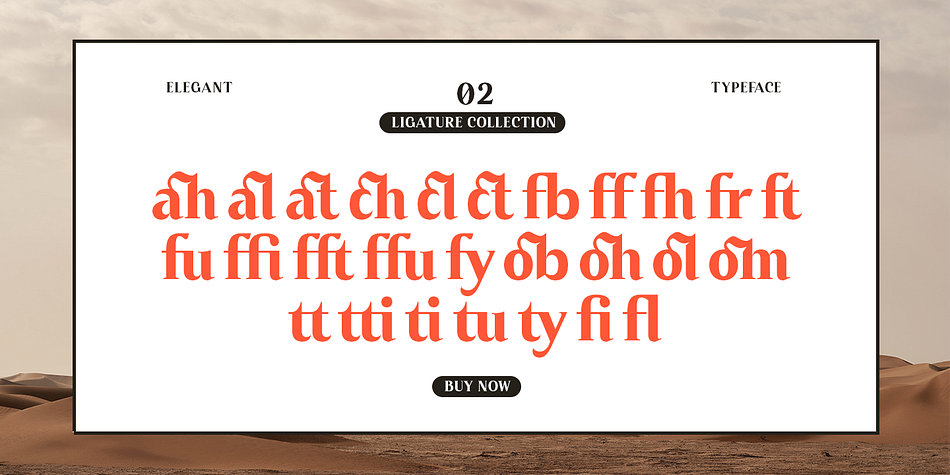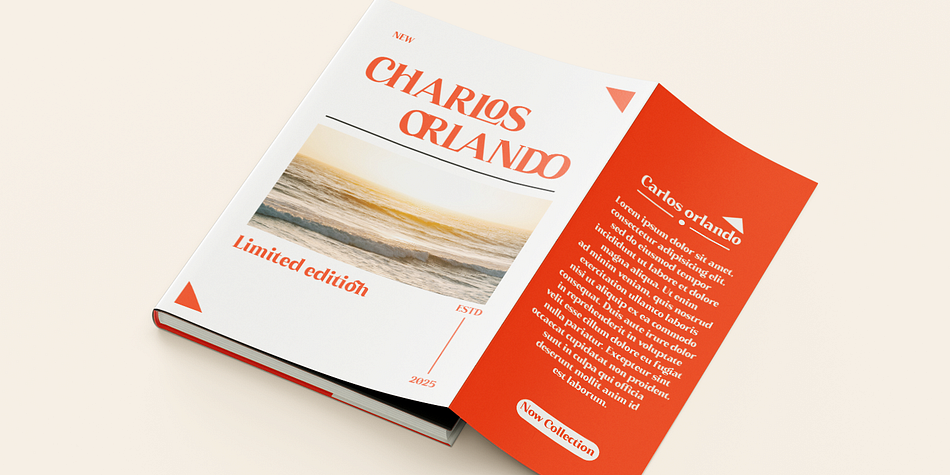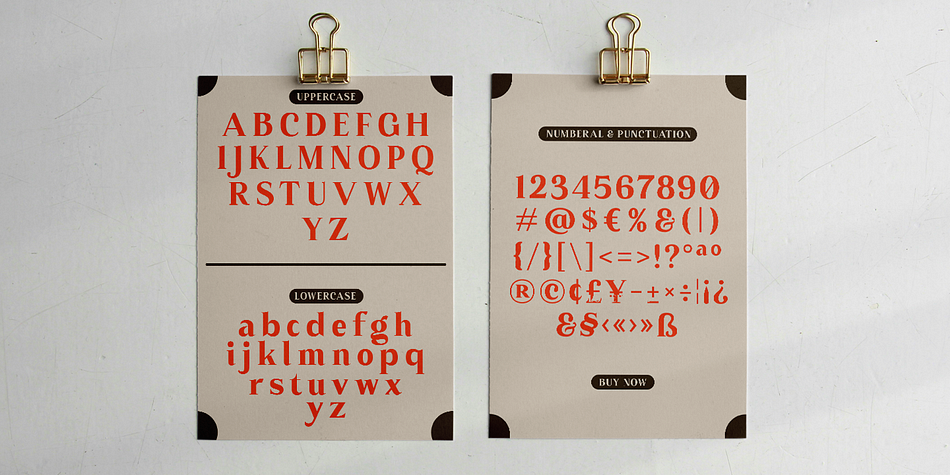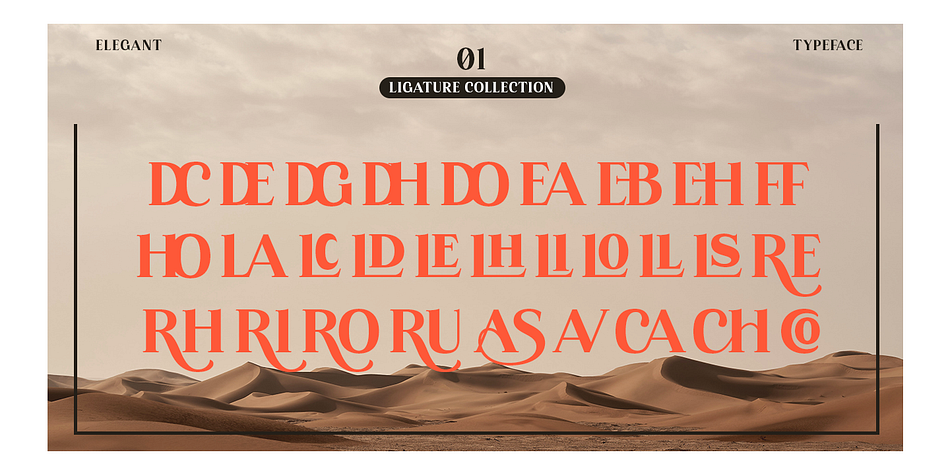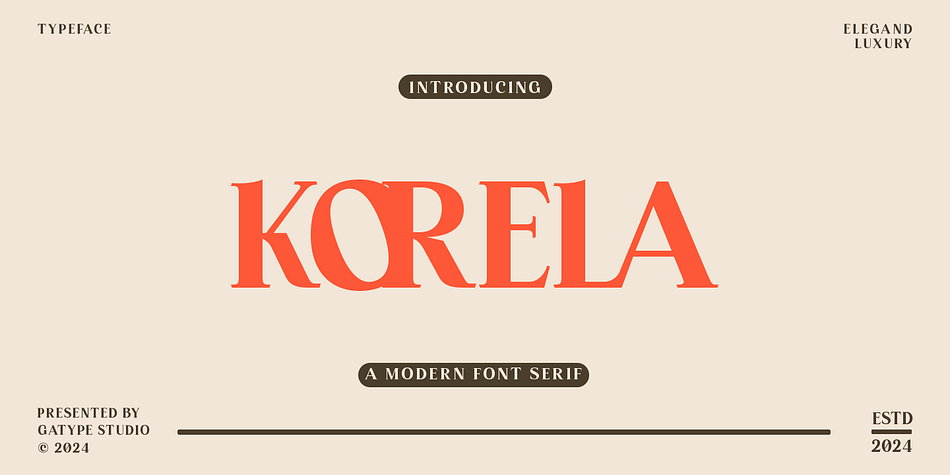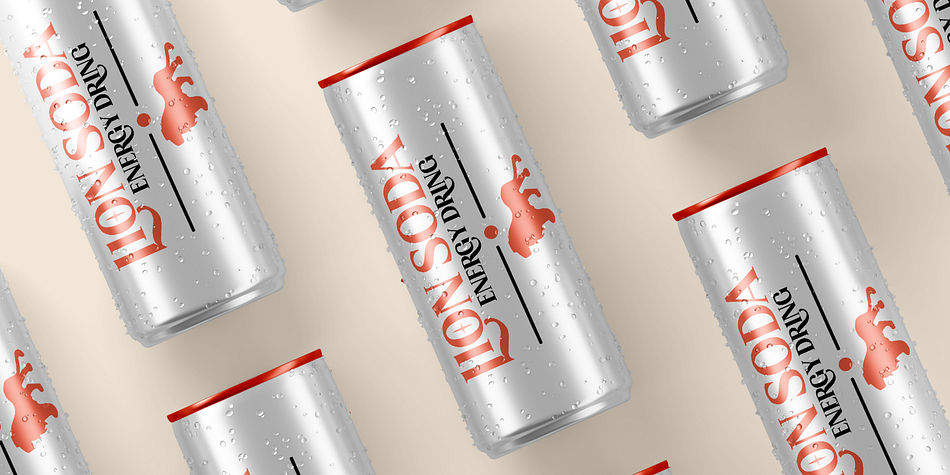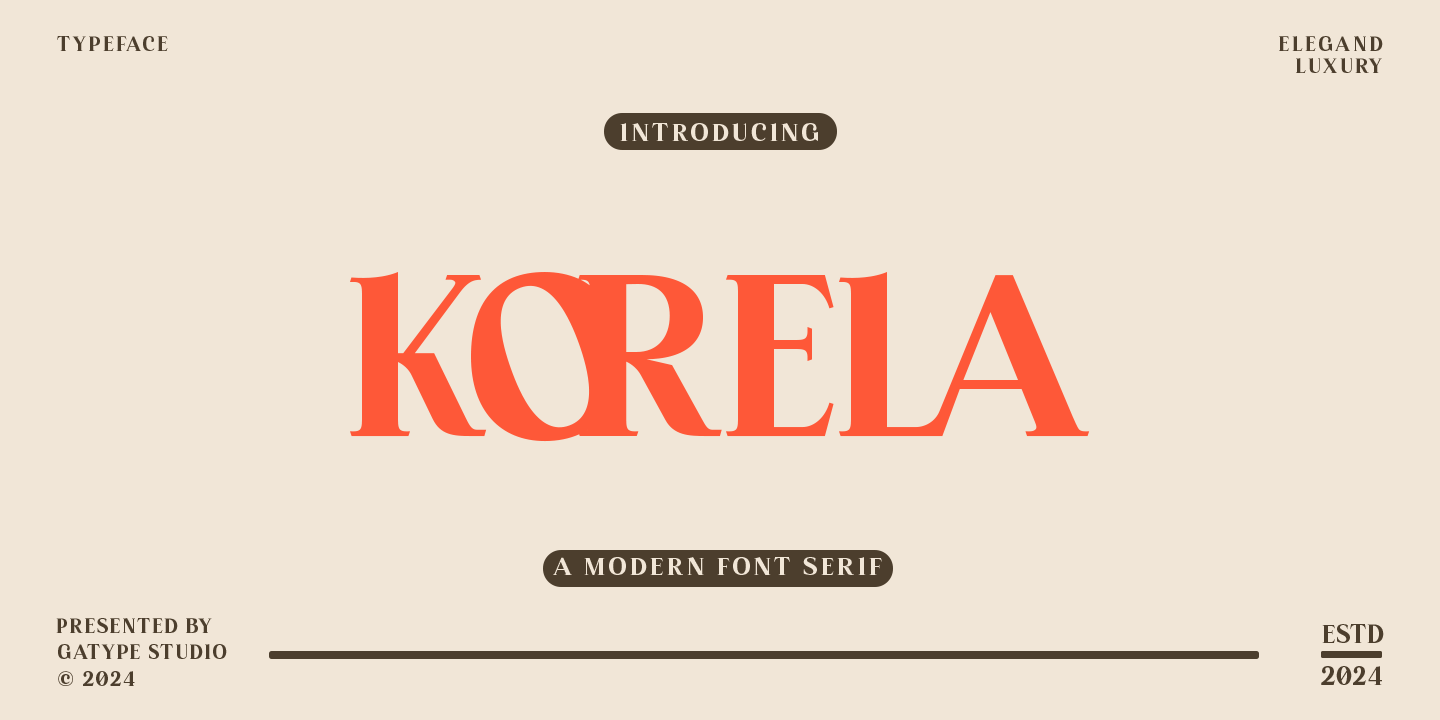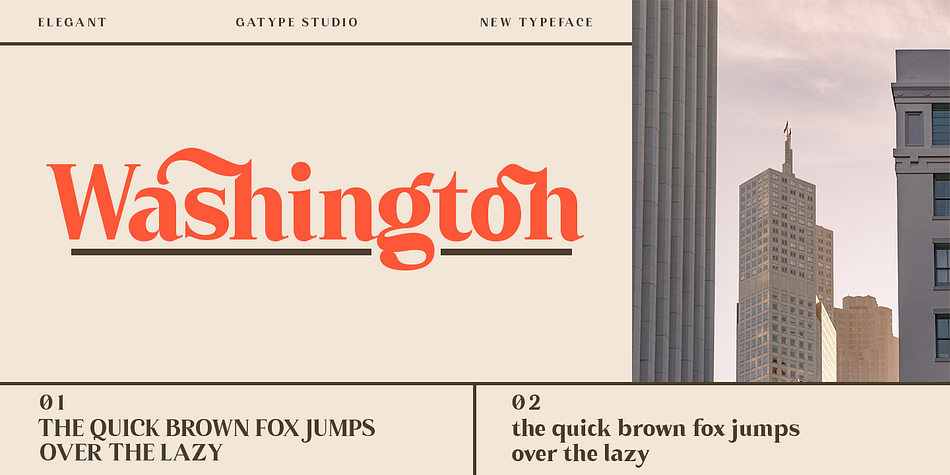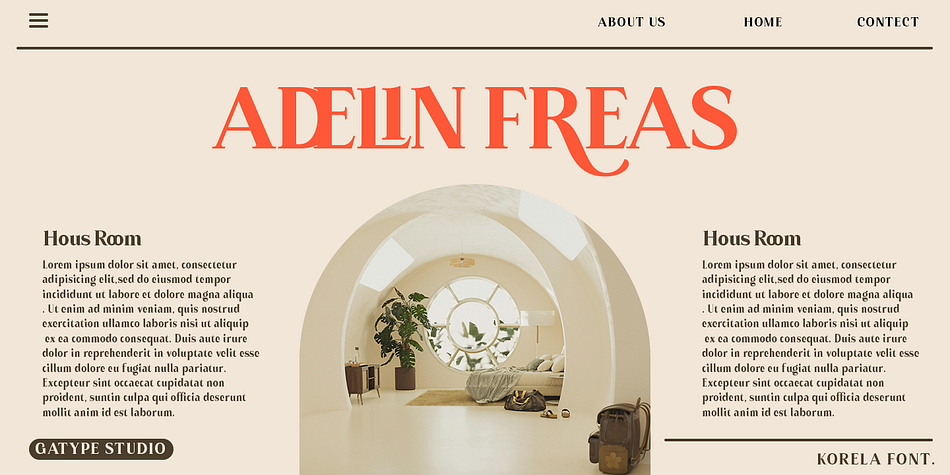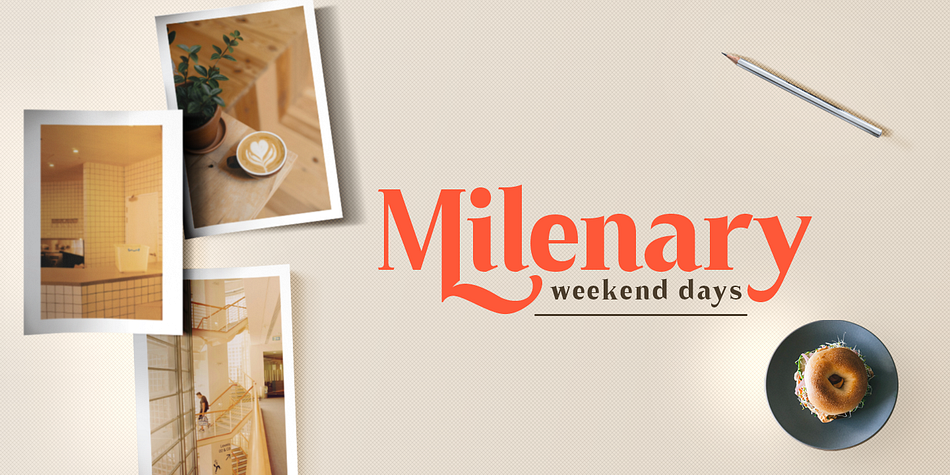
Korela
Korela is a serif font family published by Gatype.
Korela Serif is a modern font with a clean, minimalist design.
The letter design is bold and clear, with consistent thickness and Suitable for various text sizes, both titles and paragraphs.
Ideal for digital design, branding, and materials that require a contemporary and professional look.